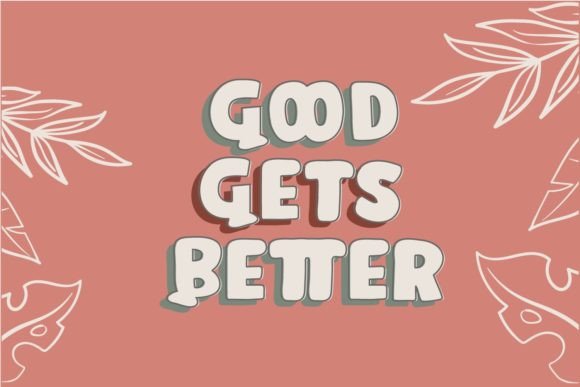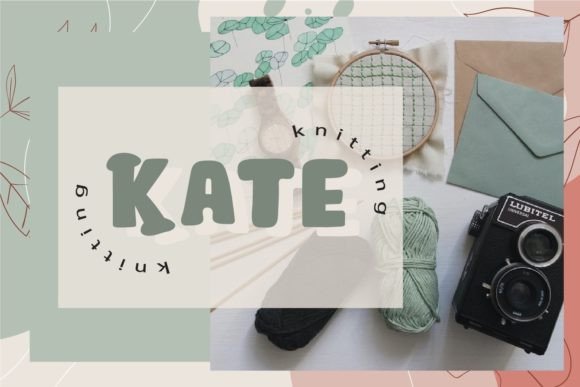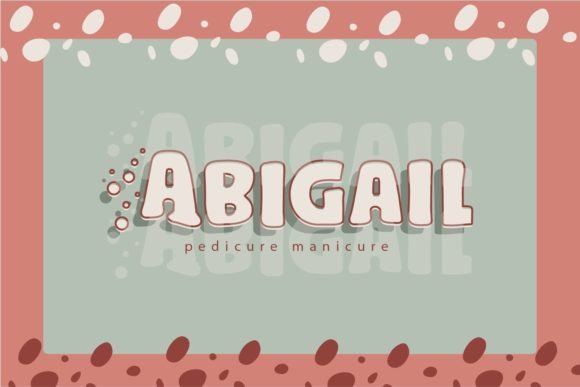
Introduction to Sia | Display Typeface Font
Do you remember the excitement of designing your first party invitation or social media graphic? The rush of creativity as you search for the perfect font to capture the mood and tone of your project? For designers, finding the right font can make all the difference in bringing a creative vision to life. That’s why we’re thrilled to introduce you to Sia | Display Typeface Font, a cool, incredibly cute and bubbly display font that’s sure to add a touch of youth and joy to your next design project.
Whether you’re working on a design project that requires a high-quality, free download font or just want to add a little extra flair to your social media graphics, Sia | Display Typeface Font is the perfect resource. With its PUA encoded features, you can access all of the amazing glyphs and ligatures with ease, making it a valuable addition to any design toolbox.
Key Features of Sia | Display Typeface Font
- High-quality font design for creative projects and design resources, offering a unique and modern aesthetic.
- Designed to be highly legible and readable, even at small font sizes, making it an ideal choice for creative projects and design resources.
Honest Review: Sia | Display Typeface Font
I recently came across the Sia | Display Typeface Font while working on a creative project, and I must say it’s been a game-changer. This free download is a fantastic design resource that offers a unique aesthetic.
- ✨ High-quality font that’s perfect for headlines and titles
- ✨ Transparent background option for a clean and minimalist look
- ✨ Great for creating visually appealing graphics and designs
- ⚠️ Limited font styles and weights available
- ⚠️ May not be suitable for body text due to its display font nature
Overall, I’m impressed with the Sia | Display Typeface Font. It’s a high-quality design resource that’s perfect for creative projects that require a bold and eye-catching font. While it may have some limitations, I believe it’s a great addition to any designer’s toolkit.
The Sia | Display Typeface Font is a high-quality design resource perfect for your next creative project. This free download offers a unique and stylish display typeface ideal for headings, titles, and other prominent text elements.
The Sia | Display Typeface Font is ideal for various design projects, including:
- Headings and titles for websites and magazines
- Display text for social media graphics and advertisements
- Typography for brochures, flyers, and other marketing materials
Tips for Getting the Most Out of Sia | Display Typeface Font
For optimal results, use the Sia | Display Typeface Font on a transparent background to create a striking visual effect. Experiment with different font sizes and colors to add depth and interest to your design.
Can I use Sia | Display Typeface Font on a transparent background, or will it look distorted?
Sia | Display Typeface Font is designed to work well on both solid and transparent backgrounds. Since it’s a high-quality font, it will maintain its crisp and clear appearance even on a transparent background. However, the font’s appearance may be affected